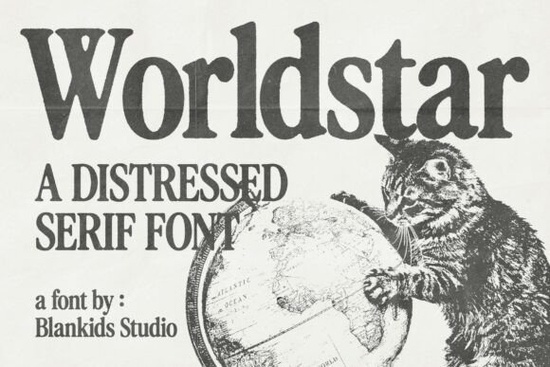
Looking for a font that brings vintage charm with just the right amount of grit? Worldstar Font delivers exactly that a bold, distressed serif typeface with a handcrafted feel that’s perfect for projects needing character and depth. Whether you're designing a retro logo, a grunge poster, or a book cover with nostalgic vibes, this font adds instant personality without sacrificing readability.
What makes Worldstar stand out?
Unlike clean, modern fonts, Worldstar embraces imperfection. Its carefully textured edges and slightly uneven strokes mimic aged paper and worn printing, giving your work an authentic, lived-in look. The serif structure remains strong and clear, so it works well in both large headlines and smaller body text ideal for editorial layouts, packaging, apparel, and branding.
The roughness isn’t random. Each stroke was thoughtfully crafted to maintain visual balance while enhancing the vintage aesthetic. It’s not just about looking old it’s about feeling real. This kind of detail matters when you’re trying to convey a story through typography, whether it’s a rustic brand identity or a music poster inspired by 70s rock culture.
Where can you use Worldstar effectively?
This font shines in creative projects that benefit from a tactile, handmade quality. Here are some common uses:
- Branding & logos – Perfect for businesses wanting a unique, memorable identity with a touch of nostalgia.
- Posters & flyers – Ideal for concerts, events, or art exhibitions where a raw, expressive style fits the mood.
- Book covers & magazines – Adds depth to stories with a classic or vintage theme.
- Packaging design – Great for craft products, coffee beans, or small-batch goods that want to feel artisanal.
- Apparel & merchandise – Works beautifully on t-shirts, tote bags, and stickers where bold, expressive text stands out.
How does it compare to other distressed serifs?
If you’ve explored similar fonts like Bezoria or Chatos, you’ll notice Worldstar leans more into the grunge side less refined, more rugged. While Bezoria offers elegant curves with subtle texture, and Chatos brings a playful, organic feel, Worldstar focuses on authenticity and wear. It’s less polished, which is exactly what you want when aiming for a “found in an old warehouse” vibe.
It’s also versatile across digital and print formats. Whether you’re working in Canva, Adobe Illustrator, or a print-on-demand platform, Worldstar holds up well at any size. The kerning and spacing are balanced, so you don’t need extra tweaks to make it look professional.
Why designers love using it
One of the reasons creatives keep coming back to Worldstar is its ability to tell a story without saying a word. A single headline in this font can suggest decades of history, weathered signs, or underground zines. That emotional weight is powerful, especially when building a brand voice or setting a mood.
Final thoughts: Is Worldstar right for your next project?
If you’re drawn to textures, imperfections, and timeless design cues, then yes this font belongs in your toolkit. It’s not for every situation (clean, minimal designs might feel off), but when you need something bold, expressive, and full of soul, Worldstar delivers.
Before you go, here’s a quick checklist to help you decide:
- ✅ Your project needs a vintage, grunge, or retro feel
- ✅ You want readable text with a handcrafted appearance
- ✅ You’re open to slight irregularities in letterforms
- ✅ You’re using it in print, digital, or merch design
- ✅ You’ve already explored similar fonts like Bezoria or Chatos
If most of these apply, give Worldstar a try. It’s one of those rare fonts that feels both familiar and fresh like discovering an old postcard that still speaks to today’s audience.